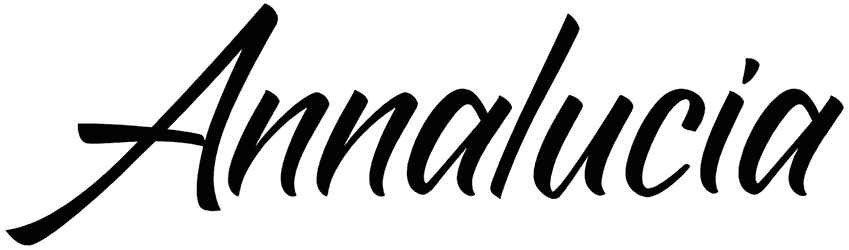
Annalucia Font
Any original concept will shine brighter when set in the charming Annalucia font. You can give your digital creations a more organic look and feel with this script font, which is ideal for Valentine’s Day design and is suitable for use in branding, social media, and other similar projects.
This font gives any presentation a warm, lighthearted vibe. This swish swash font is a cornerstone of retro design and is available for immediate download.
This charming font will turn any creative idea into a standout.
Perfect for all logos, branding, social media, etc.